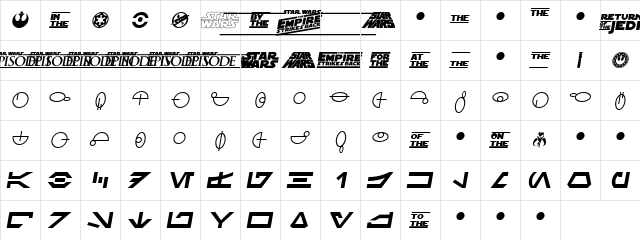
SF Distant Galaxy Symbols Italic Free Font
SF Distant Galaxy Symbols Italic
SF Distant Galaxy Symbols Family
Design Context for SF Distant Galaxy Symbols
SF Distant Galaxy Symbols is a composed and adaptable typeface that performs quietly and consistently across a wide range of design contexts. The slanted form adds forward momentum and visual energy.